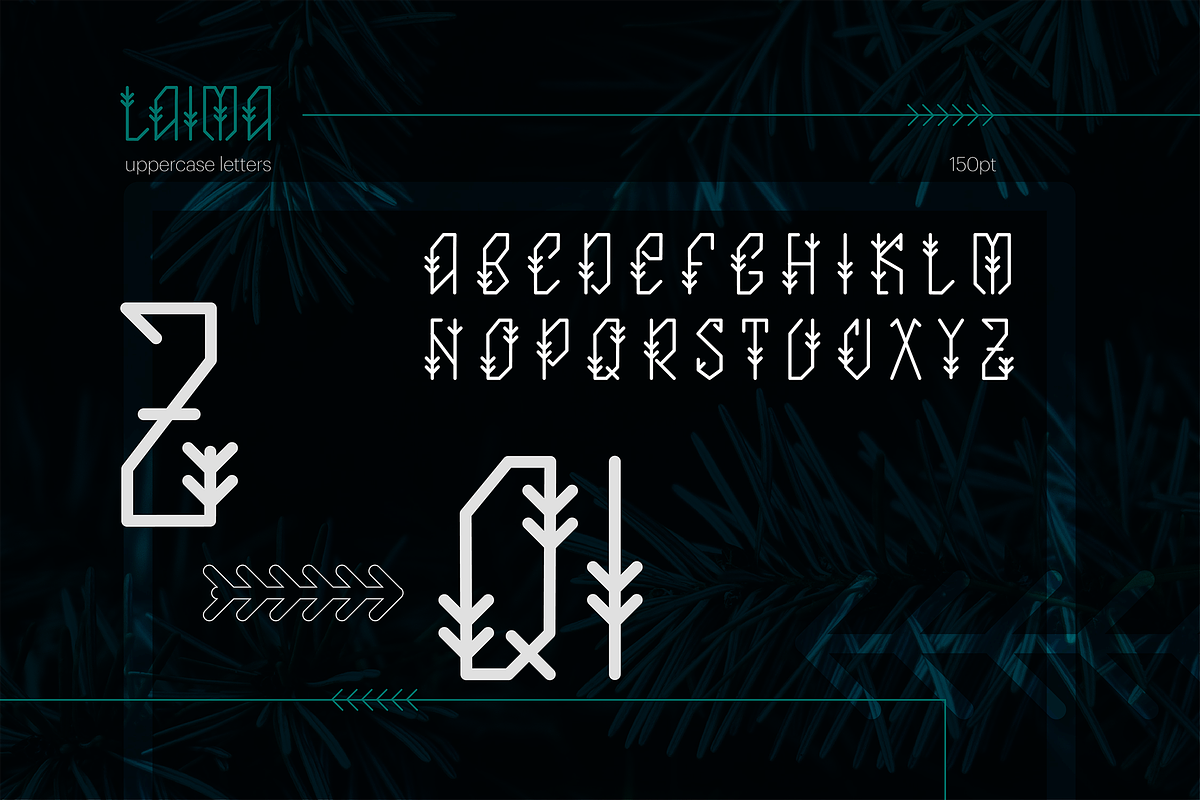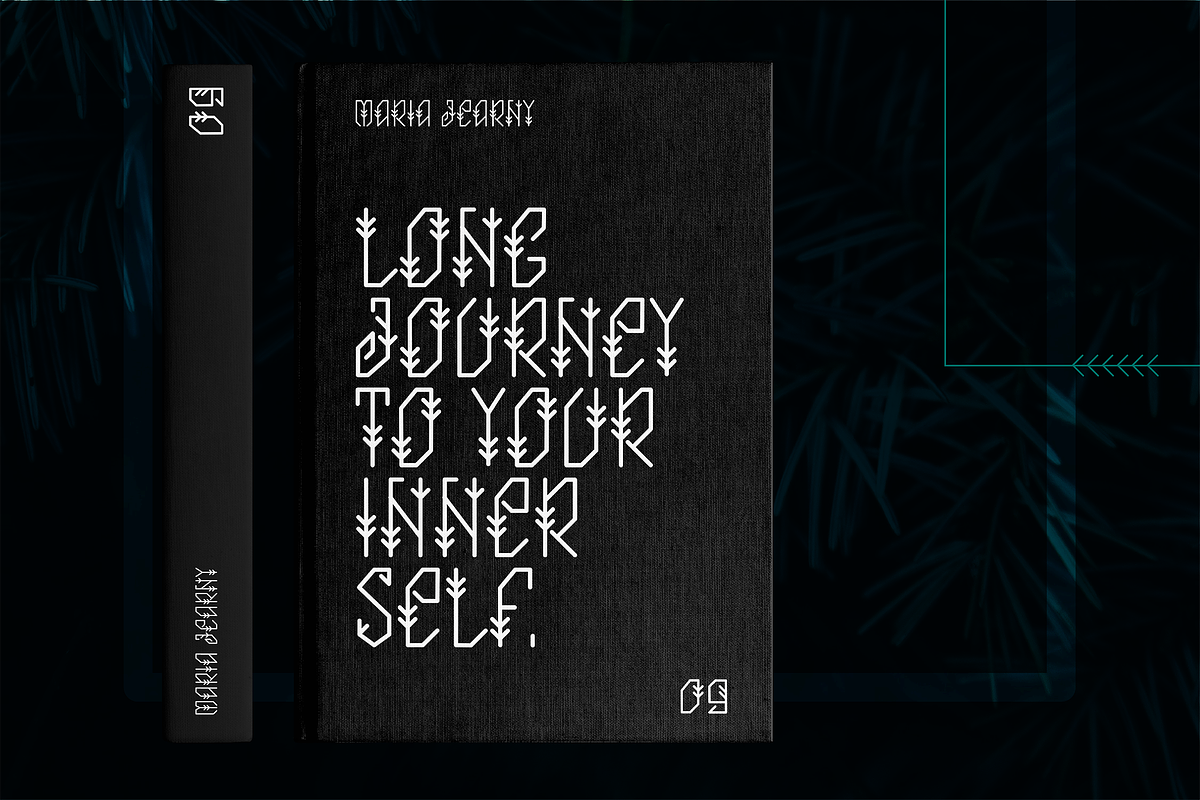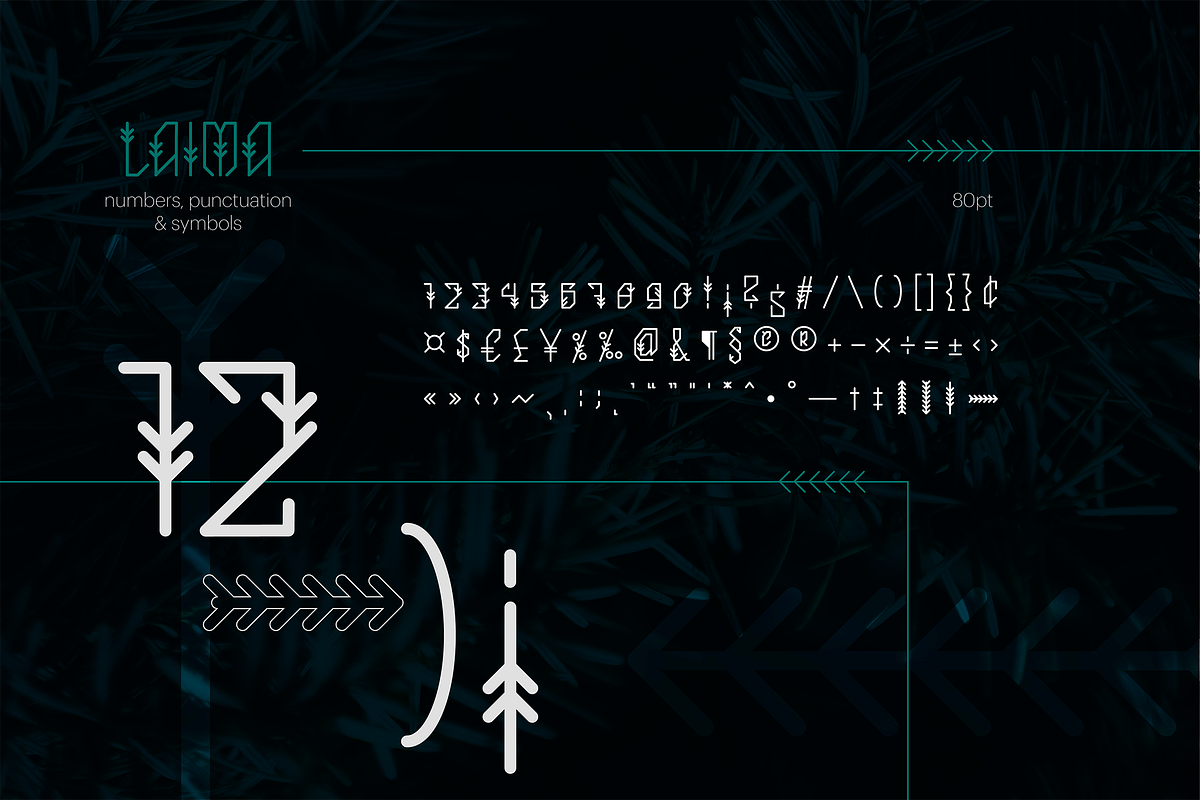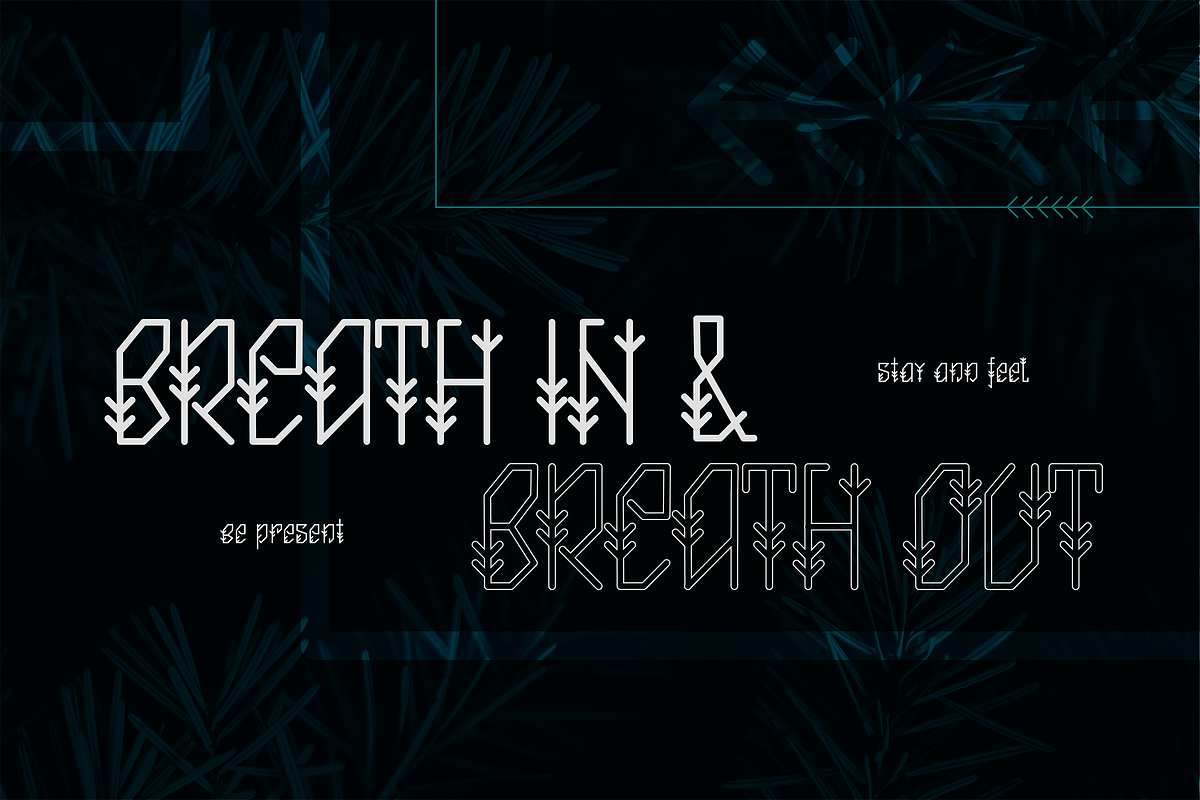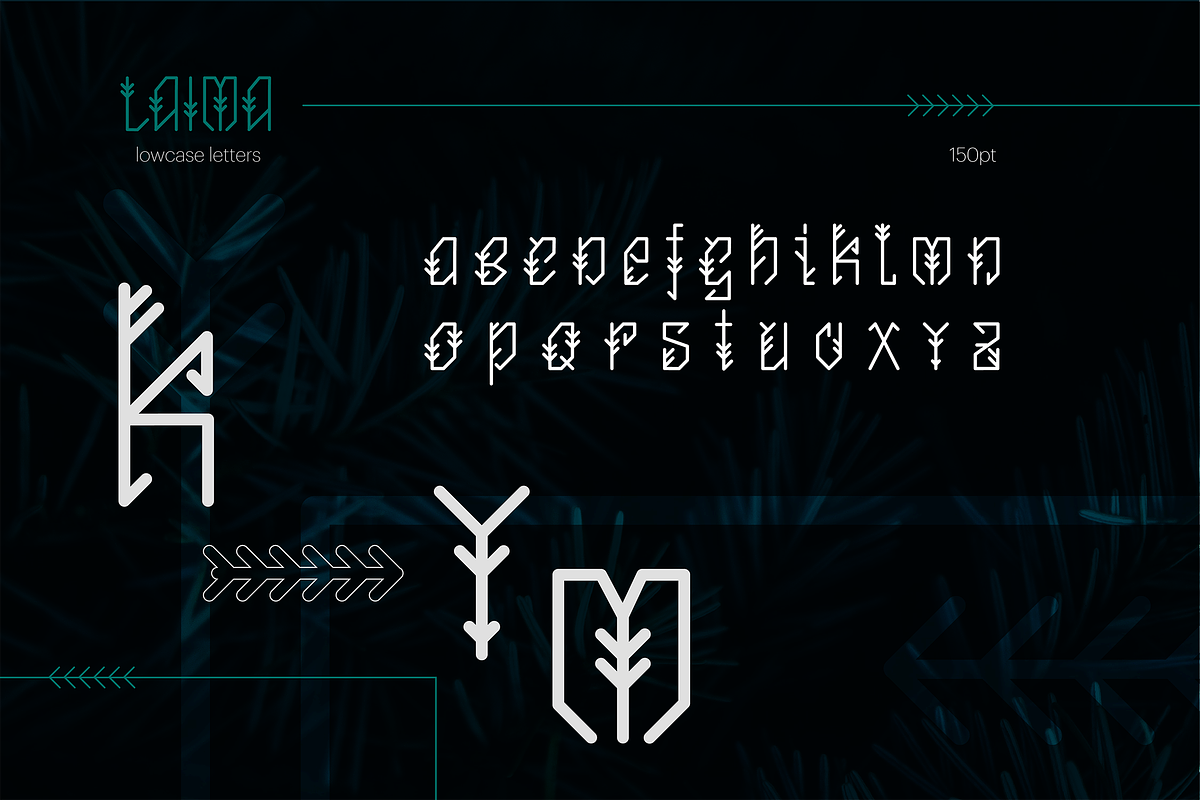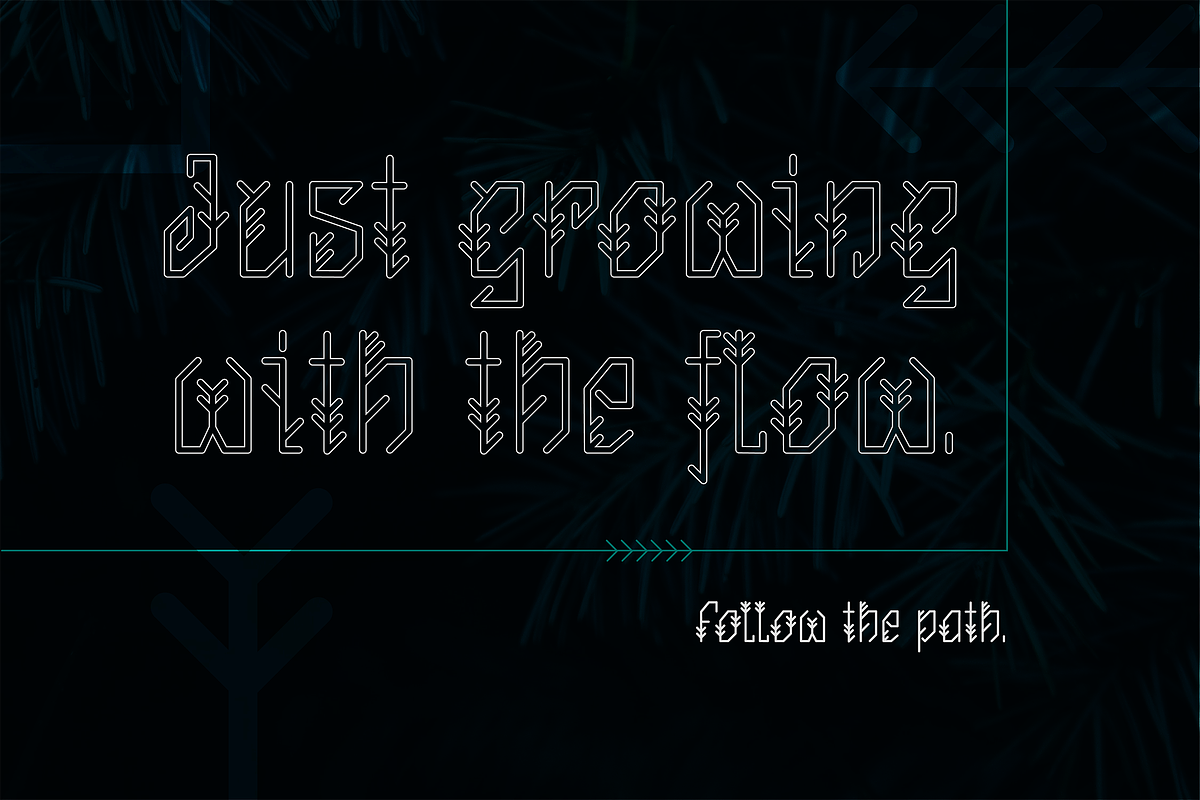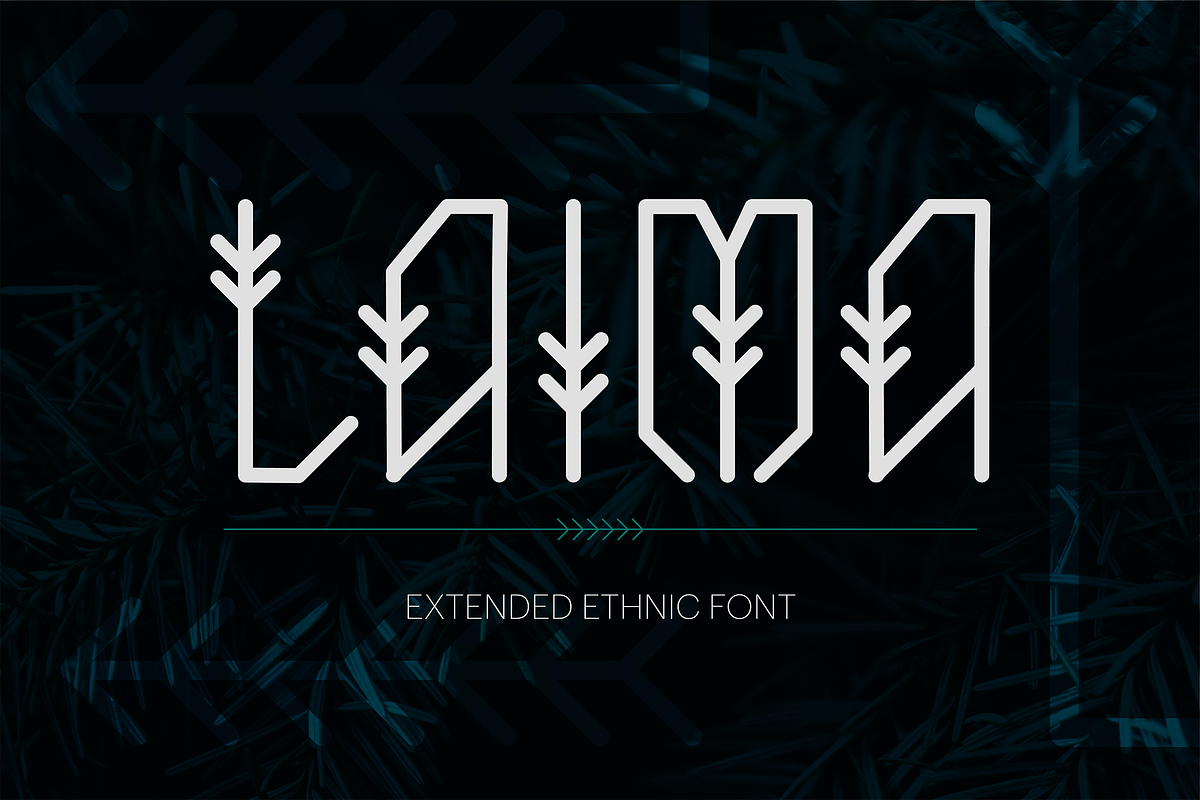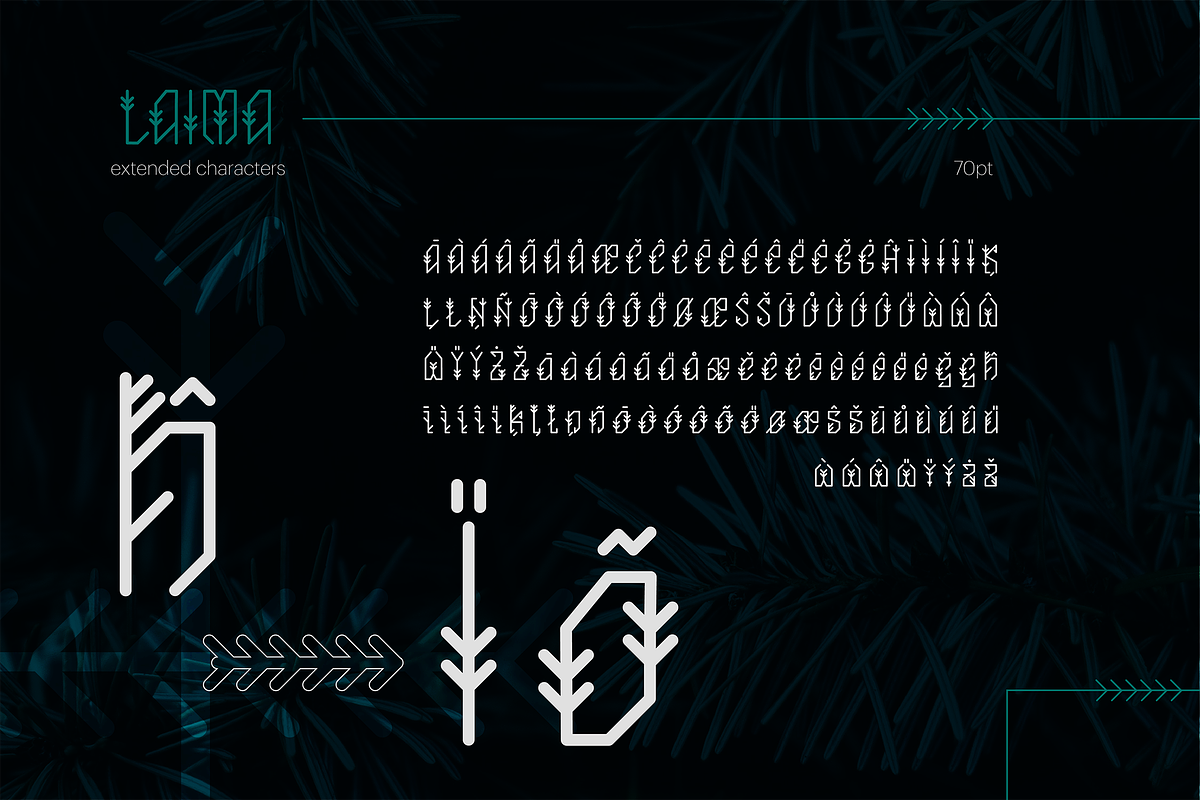
Laima Ethnic Font
I would like to introduce unique geometric ethnic font LAIMA inspired by Baltic ethnic sign “Laimas slotina” that visually looks like a branch of pine tree.
With ethnic unique style this font will be perfect for various design projects such as ethnic style posters, cards, book covers, quotes, logo, ethnic elements for fashion, clothe and t-shirts.
Laima Ethnic Font by Wild Ones fits naturally into Branding, posters, packaging, typography.